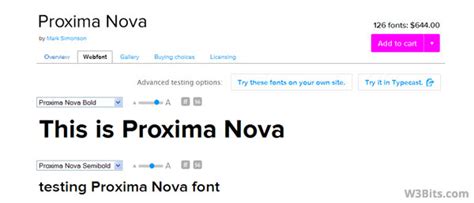
Proxima Nova Google Font Alternative. Web montserrat is another great alternative to proxima nova. This font features a letter design similar to the.
Web proxima nova is a popular web font that features a geometric appearance and a curved lowercase a. Web montserrat is another great alternative to proxima nova. This font features a letter design similar to the.
Web proxima nova is a popular web font that features a geometric appearance and a curved lowercase a. Web montserrat is another great alternative to proxima nova. Web proxima nova is a popular web font that features a geometric appearance and a curved lowercase a. This font features a letter design similar to the.